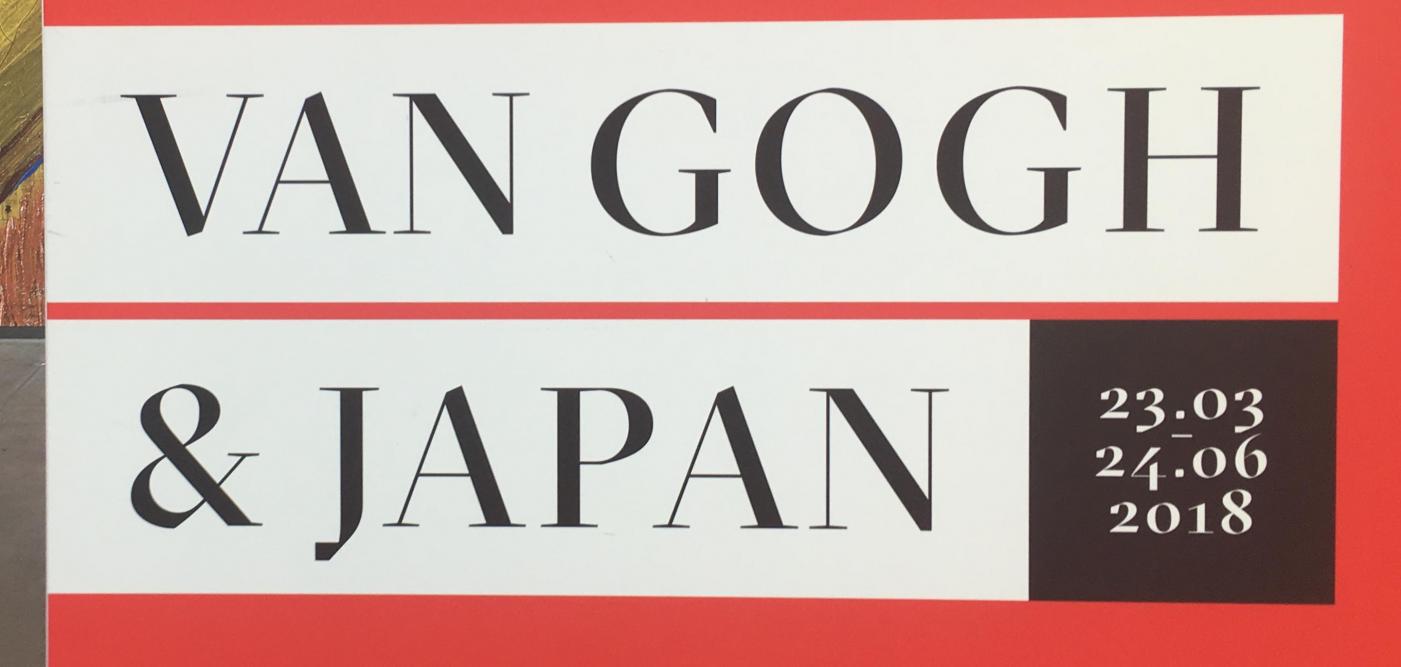
Looking for the font from the recent Van Gogh Museum (Amsterdam) exhibition
Could anyone identify the font used for the recent exhibition "Van Gogh & Japan" from the Van Gogh Museum, Amsterdam?  It was used on large displays around the museum, and has a particularly sharp, right-angled hook on the J.  Any commercial or open font would be fine.
I've attached two versions: the original photo regrettably taken at an angle, and a manually warped photo that attempts to square the font with the photo frame.